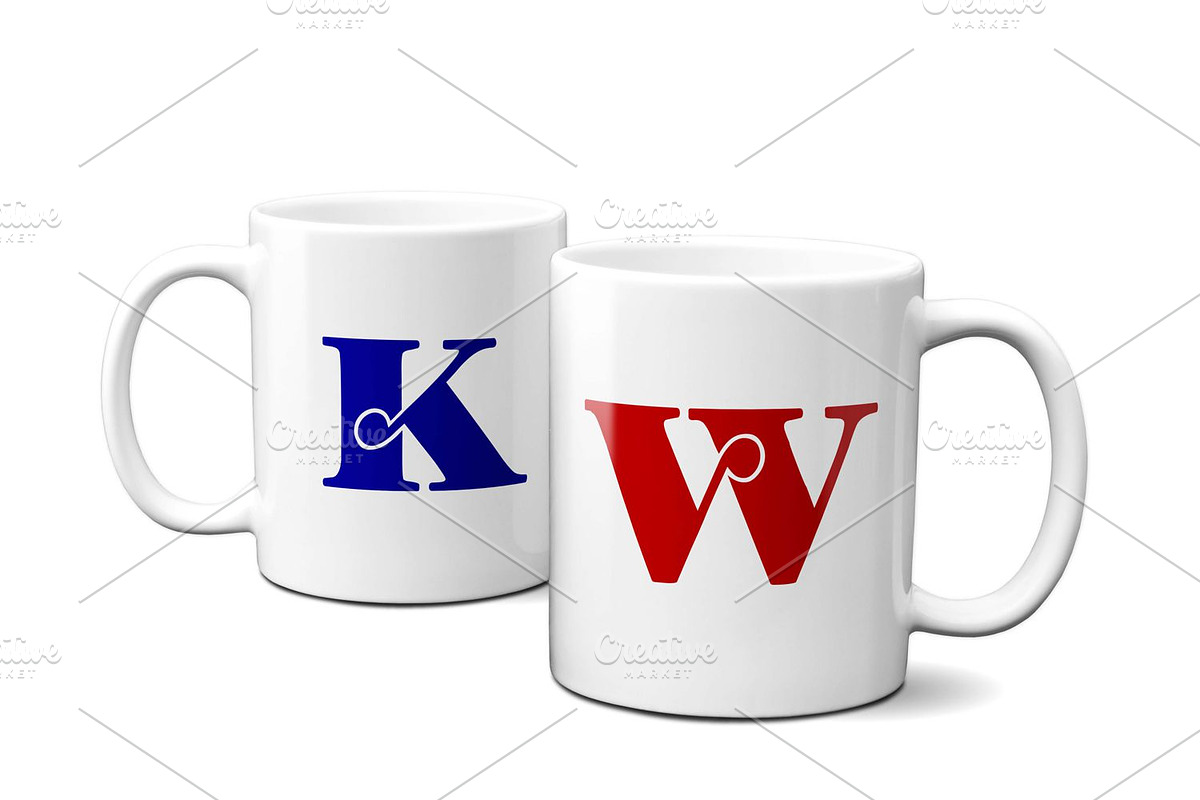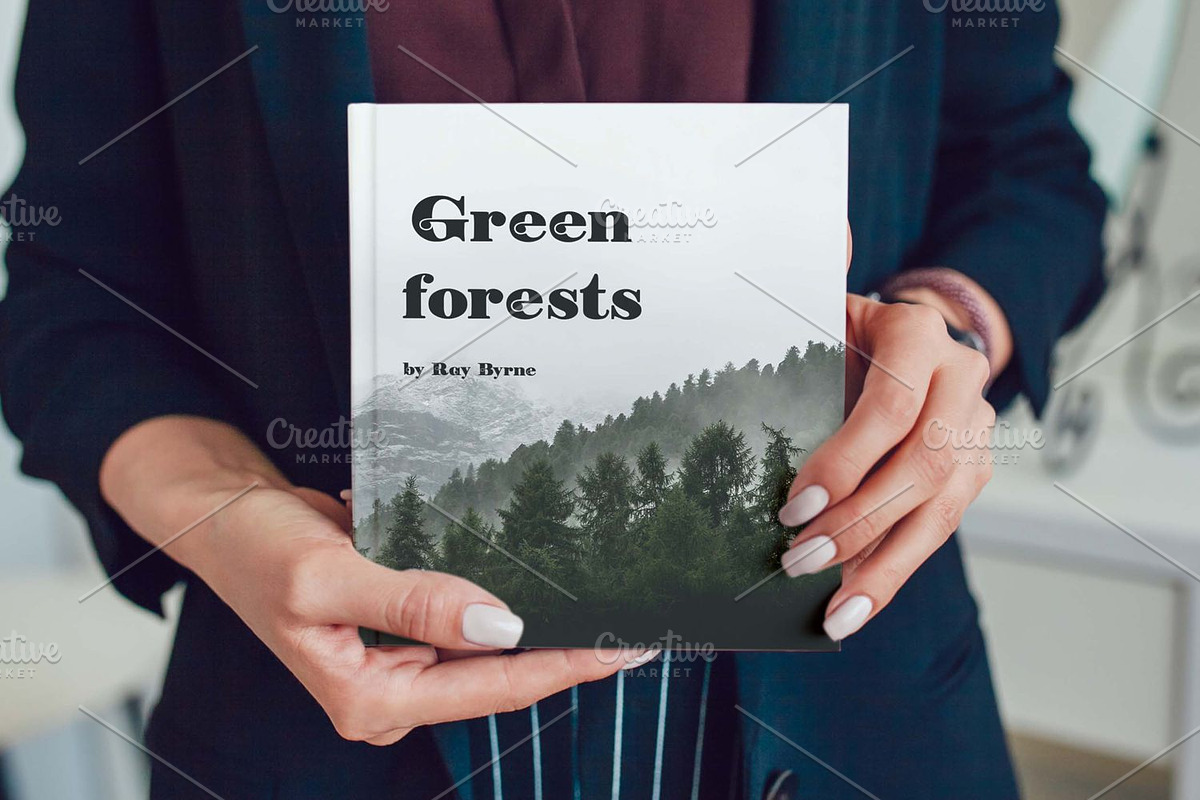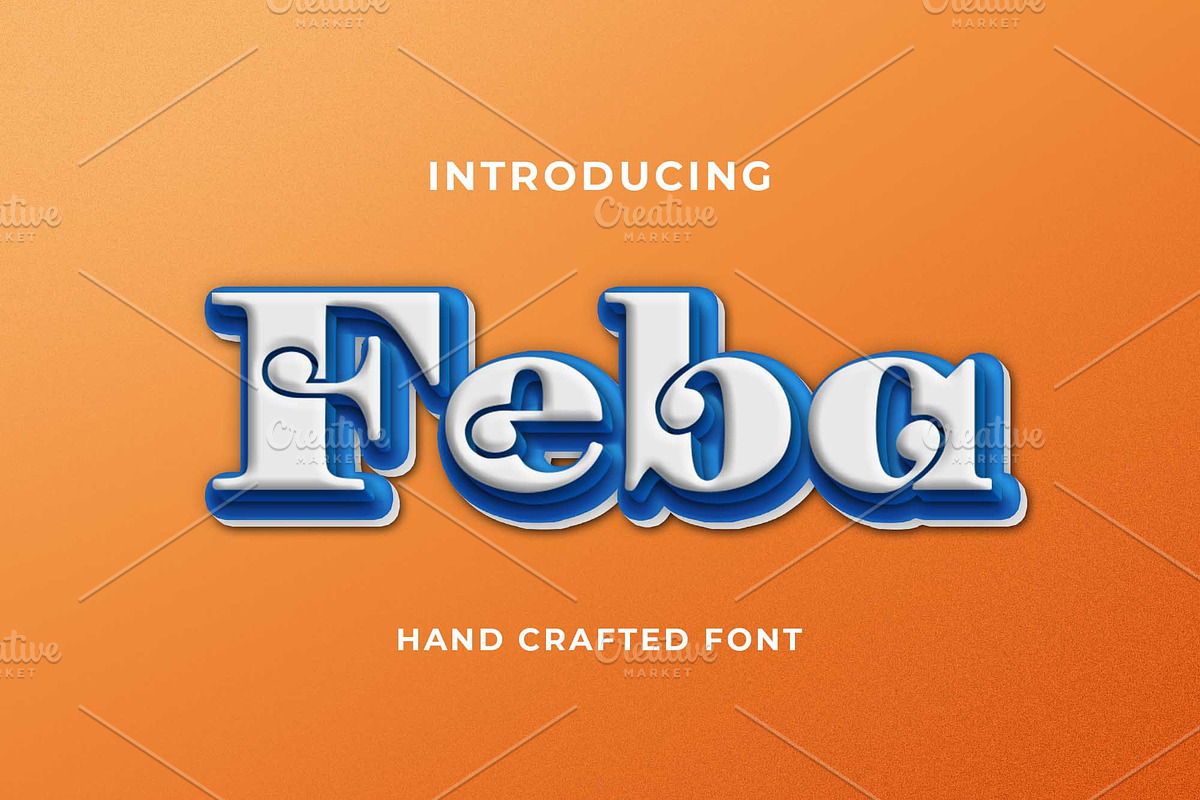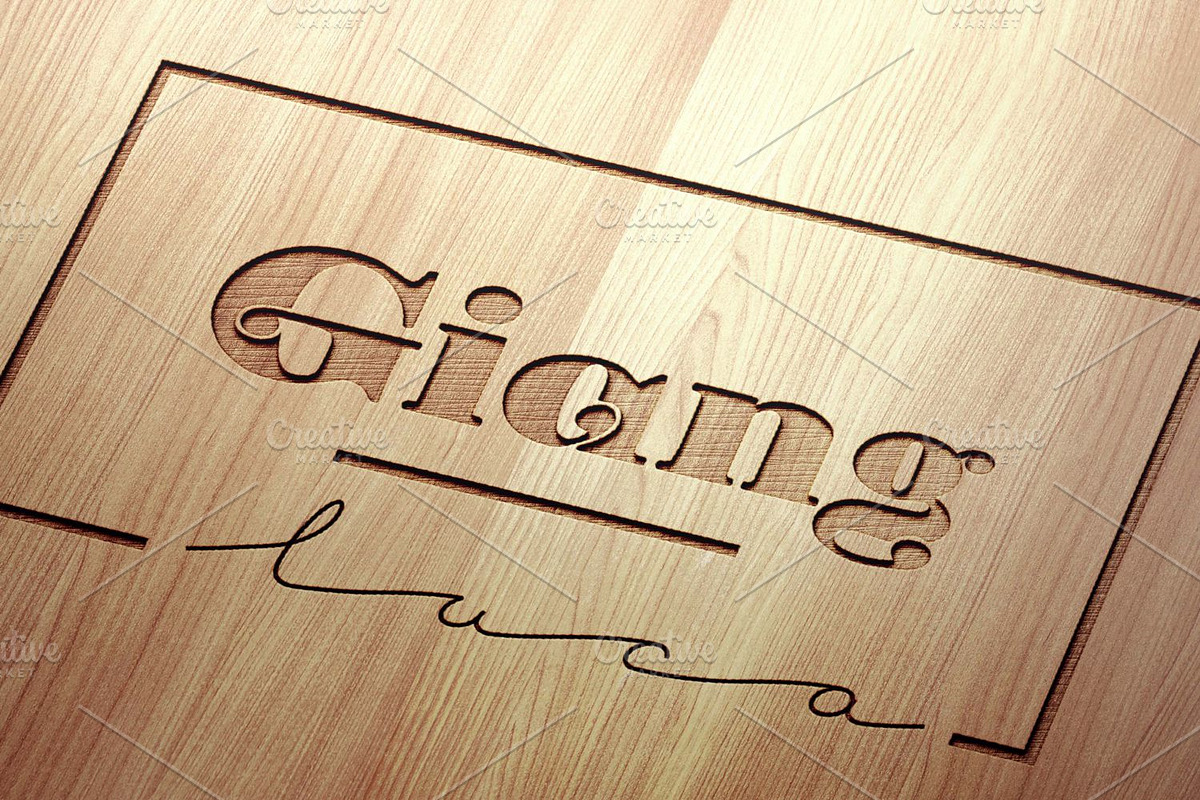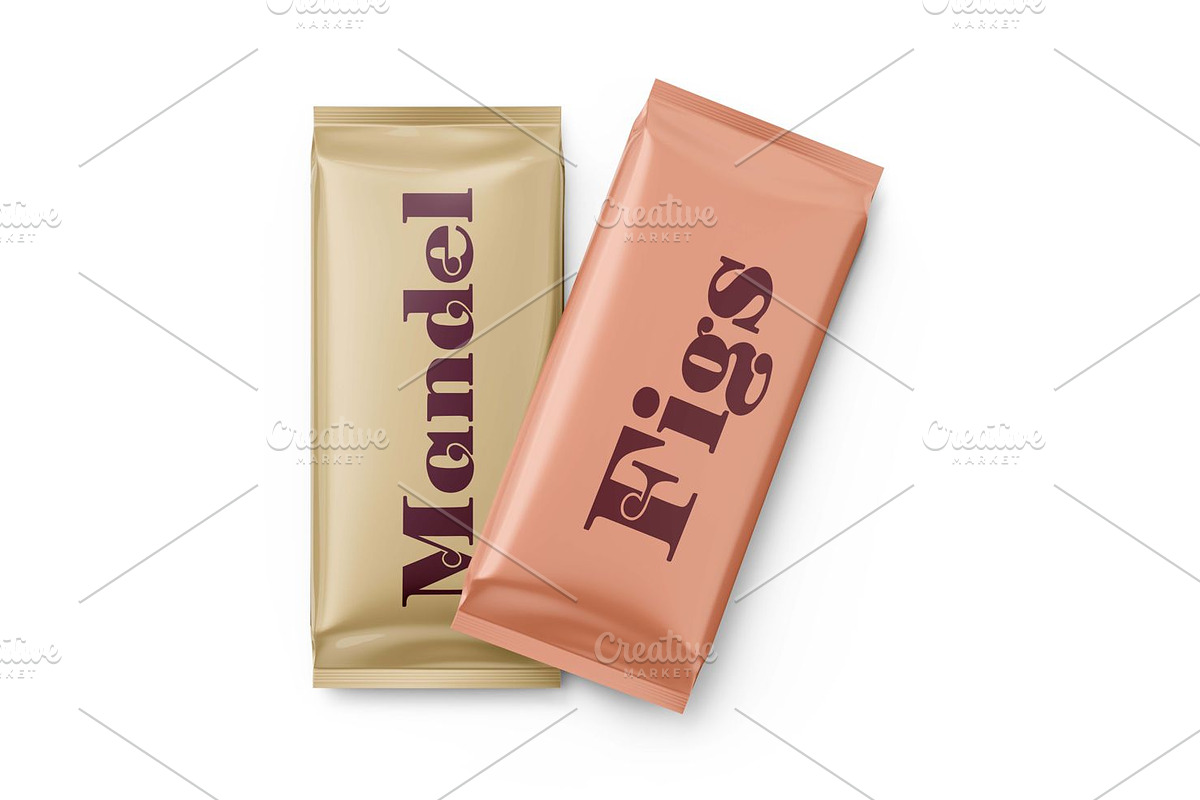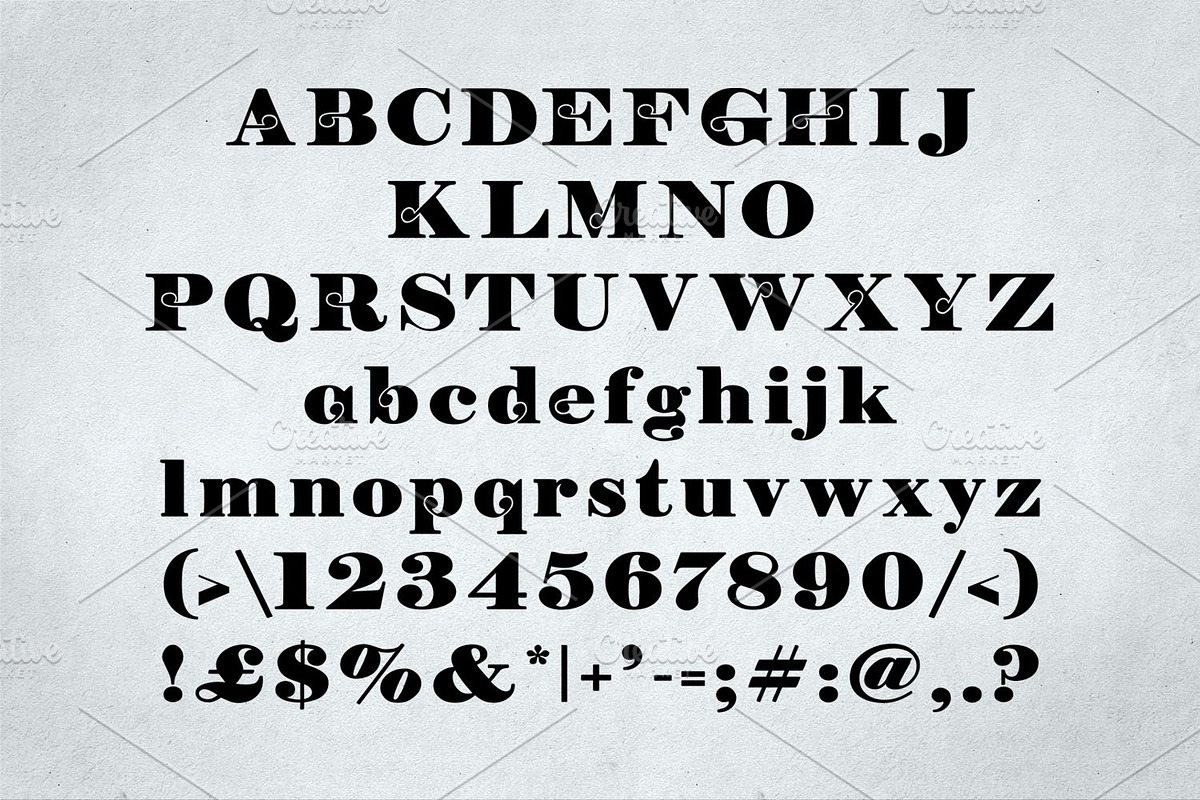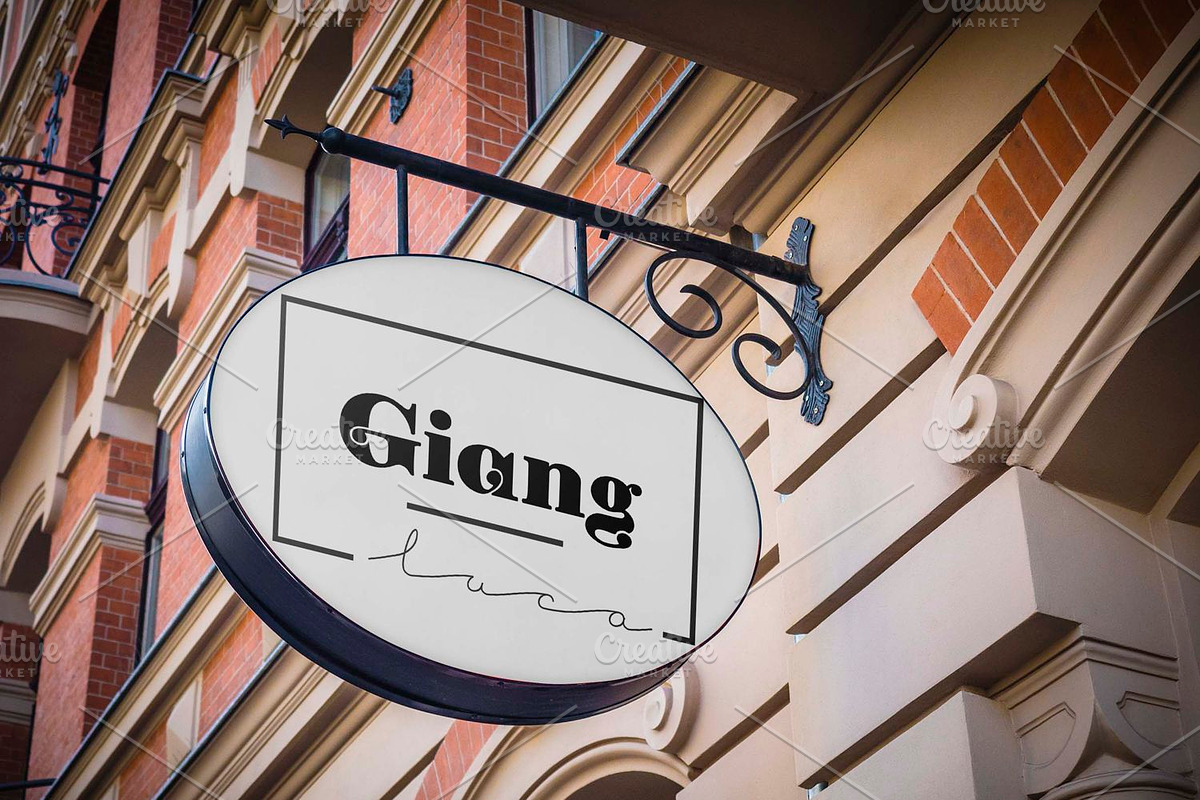
Feba
Feba is a carefully crafted decorative font, suitable for a wide variety of designs. Characters are as it is shown in the example.
Feba by Digital Typeface Studio fits naturally into Branding, posters, packaging, typography.